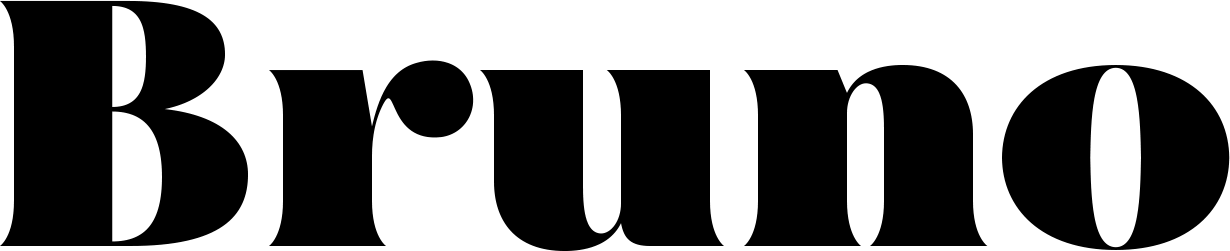
MADE Bruno Font
An important part of any layout is typography. The style of the font can show a reflection of your project’s nature. That’s why you should care about choosing them. Here is MADE Bruno with bold and chubby letters. You can apply it to logos and headlines or wherever you want to attract attention. If you need more serif fonts, just discover our library.
MADE Bruno is a modern classic serif typeface with an individual approach in every single letter.
The Bruno will perfect for many project: fashion, magazines, logo, branding, photography, wedding invitations, quotes, blog header, poster, advertisements, etc.